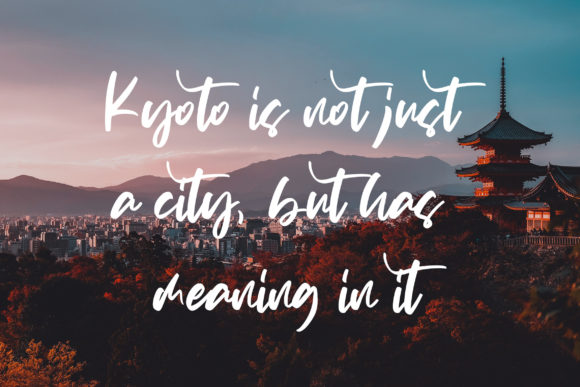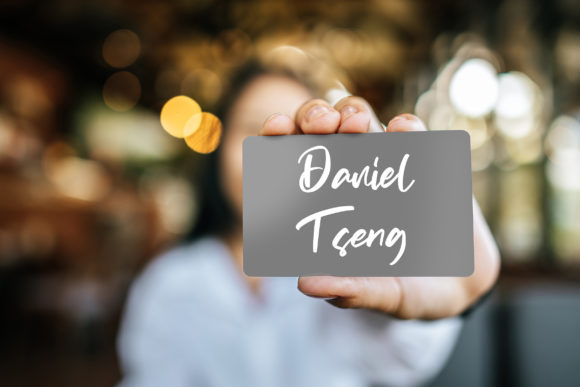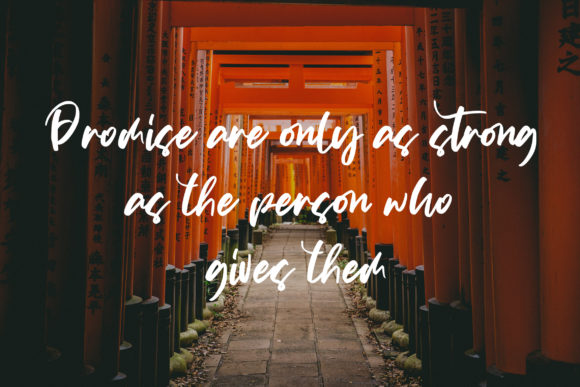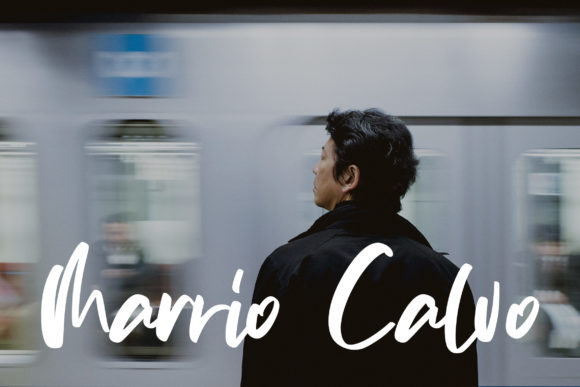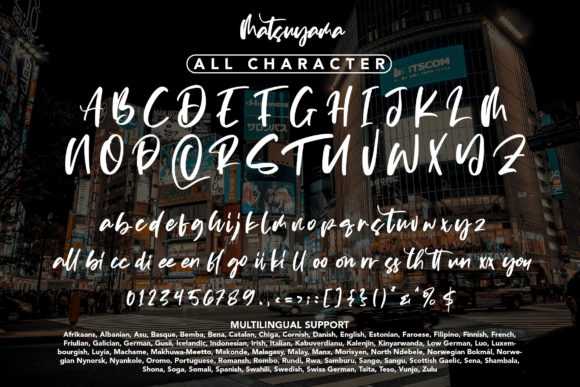
Introduction to Matsuyama Font
Matsuyama is a cool, trendy and relaxed script font.
It is defined by smooth curves and is perfect for fashion branding or editorial designs Add it confidently to your projects, and you will love the results.
Key Features of Matsuyama Font
Why Choose Matsuyama Font?
Matsuyama Font offers exceptional quality and versatility, making it a valuable addition to your design toolkit. Whether you’re creating for personal projects or commercial use, Matsuyama Font delivers professional results.